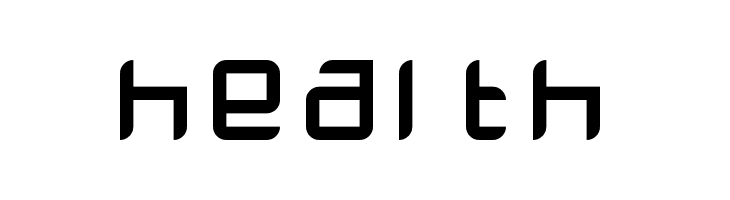
( Lorvad )
A playful, loop-themed font with high contrast and bold design.
( MirBSD )
A bold, monospaced font with a clean, modern design and medium contrast.
( Mr NastZz Blog's - imrannasution1.blogspot.com )
A pixelated, tech-inspired font with a modern digital aesthetic.
( Perry Mason )
A bold, slanted stencil font with high contrast and a strong, authoritative presence.
( Perry Mason )
A bold, stencil-style font with high contrast and a military-inspired aesthetic.
( Perry Mason )
A bold, intricate blackletter font with a medieval aesthetic.
A bold, classic serif typeface with high contrast and elegant serifs.
Elegant serif font with a classic italic slant and moderate contrast.
A bold, italicized font with a hand-drawn, sketch-like texture.
A bold, textured, hand-drawn font with a gritty, urban style.